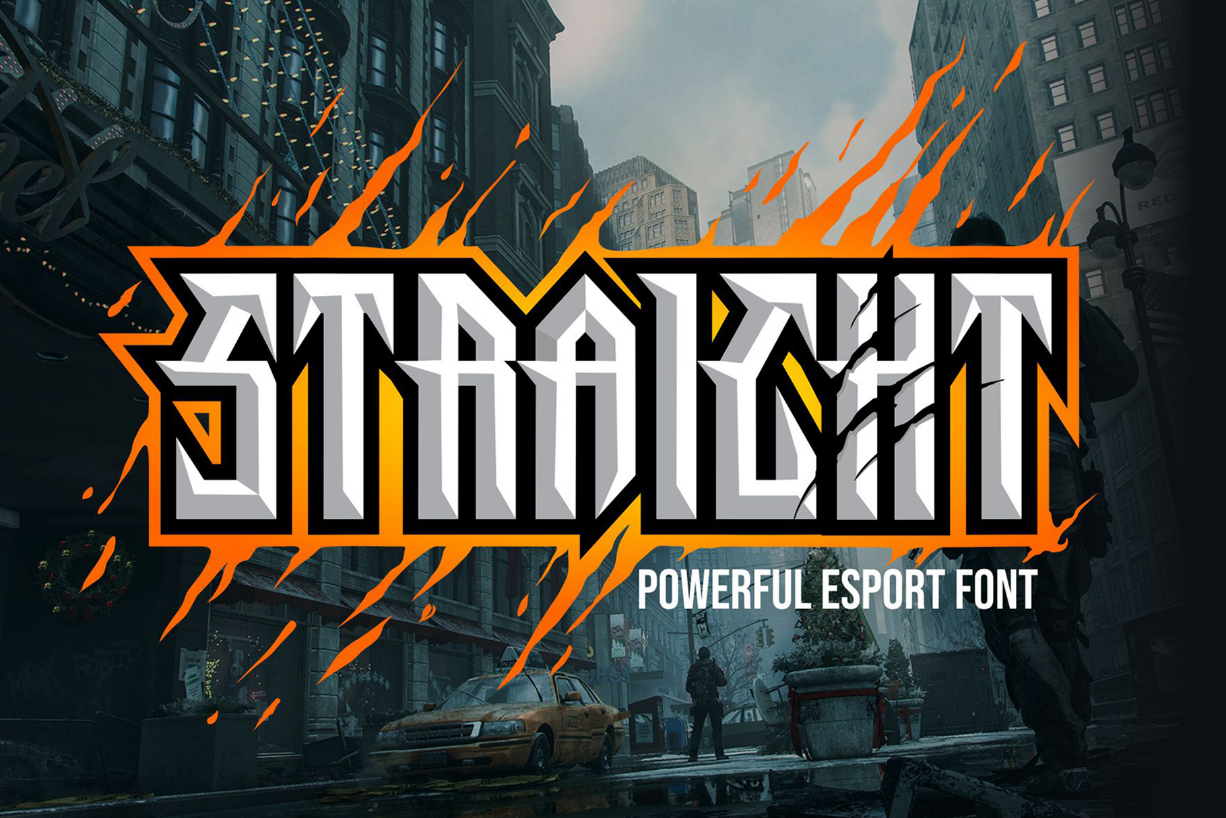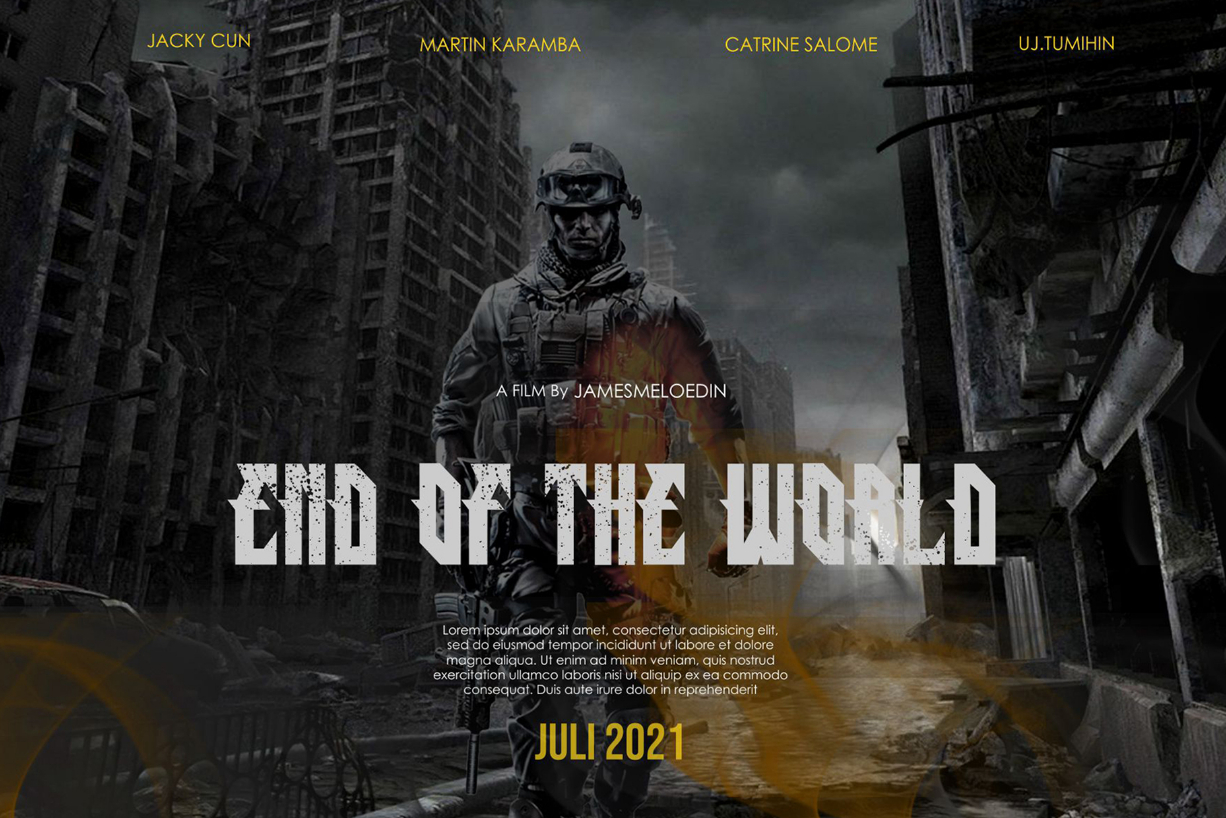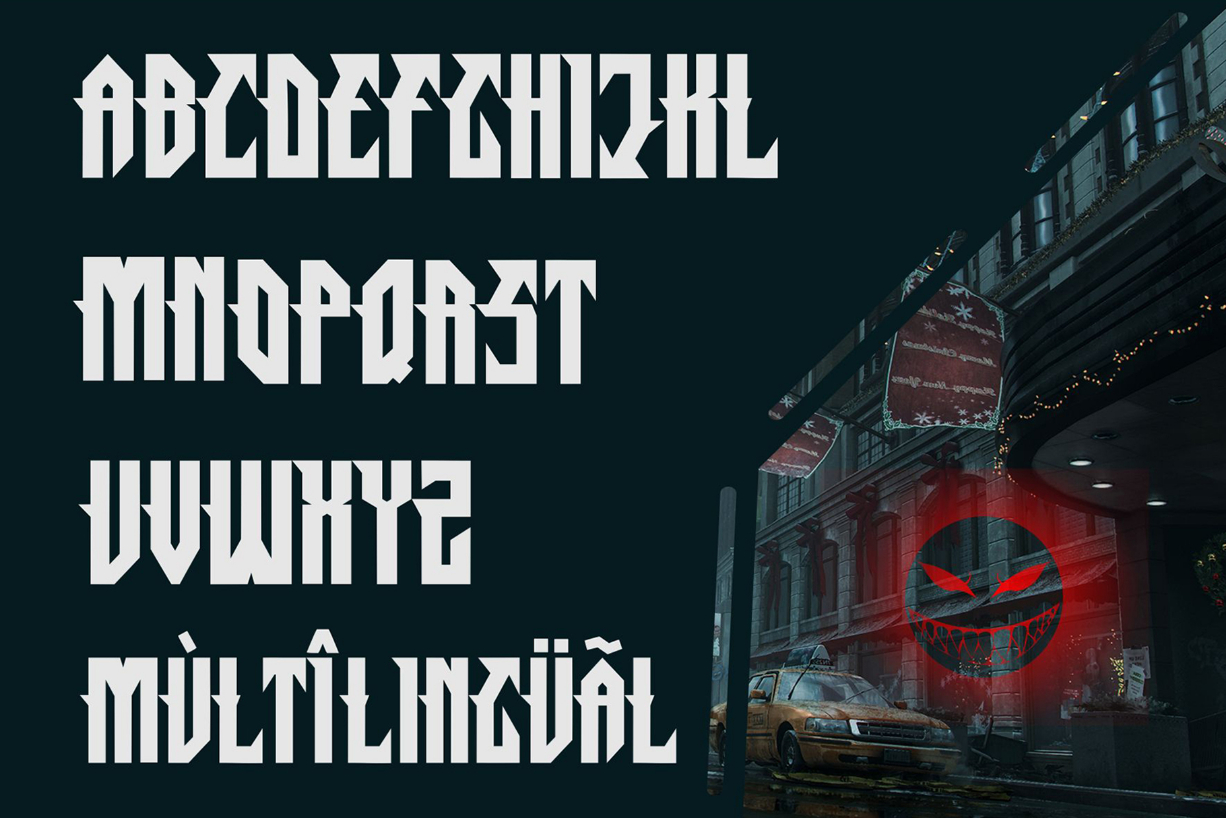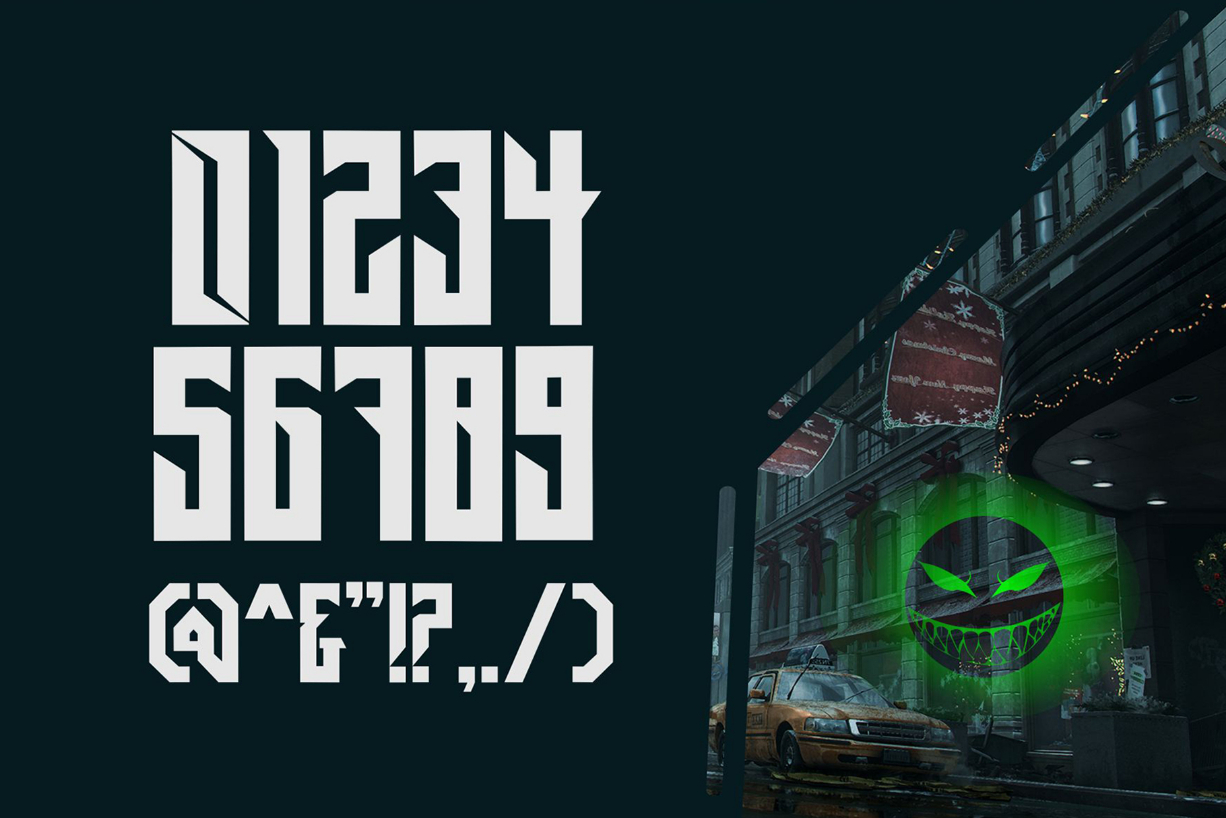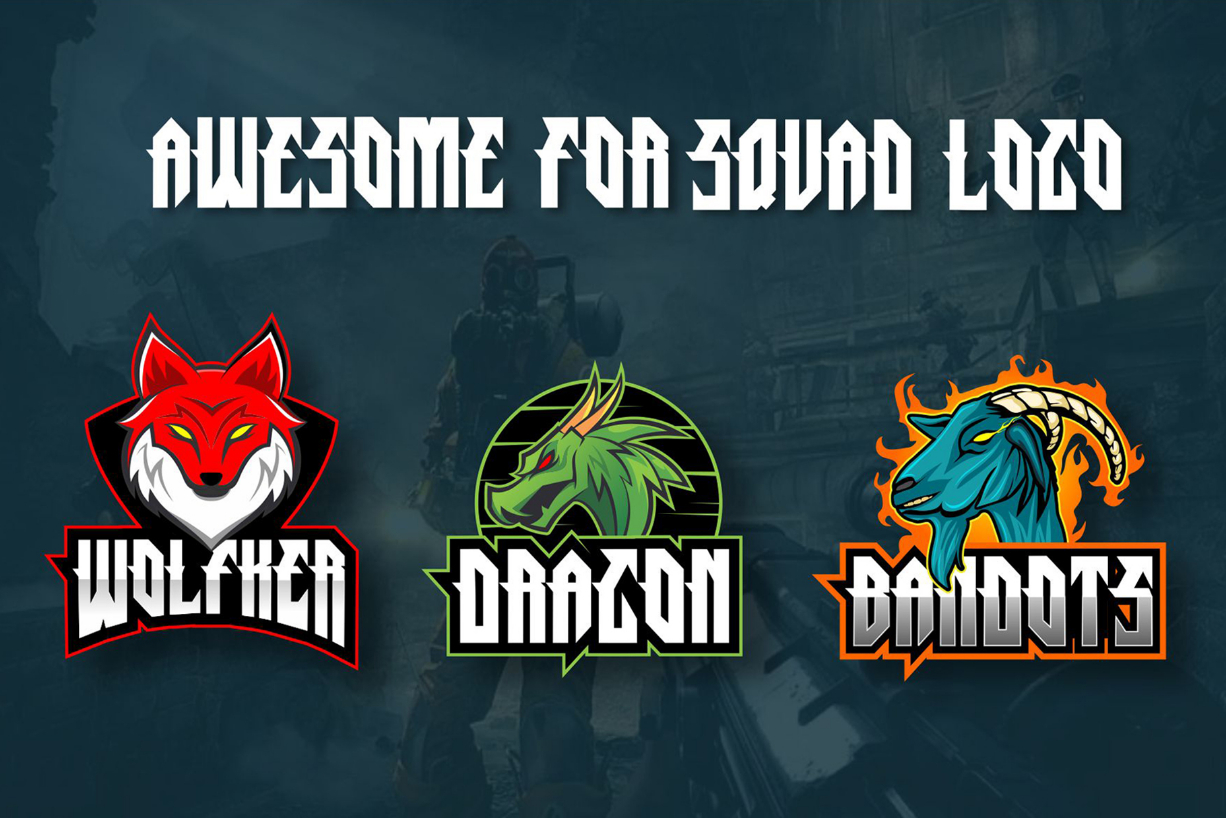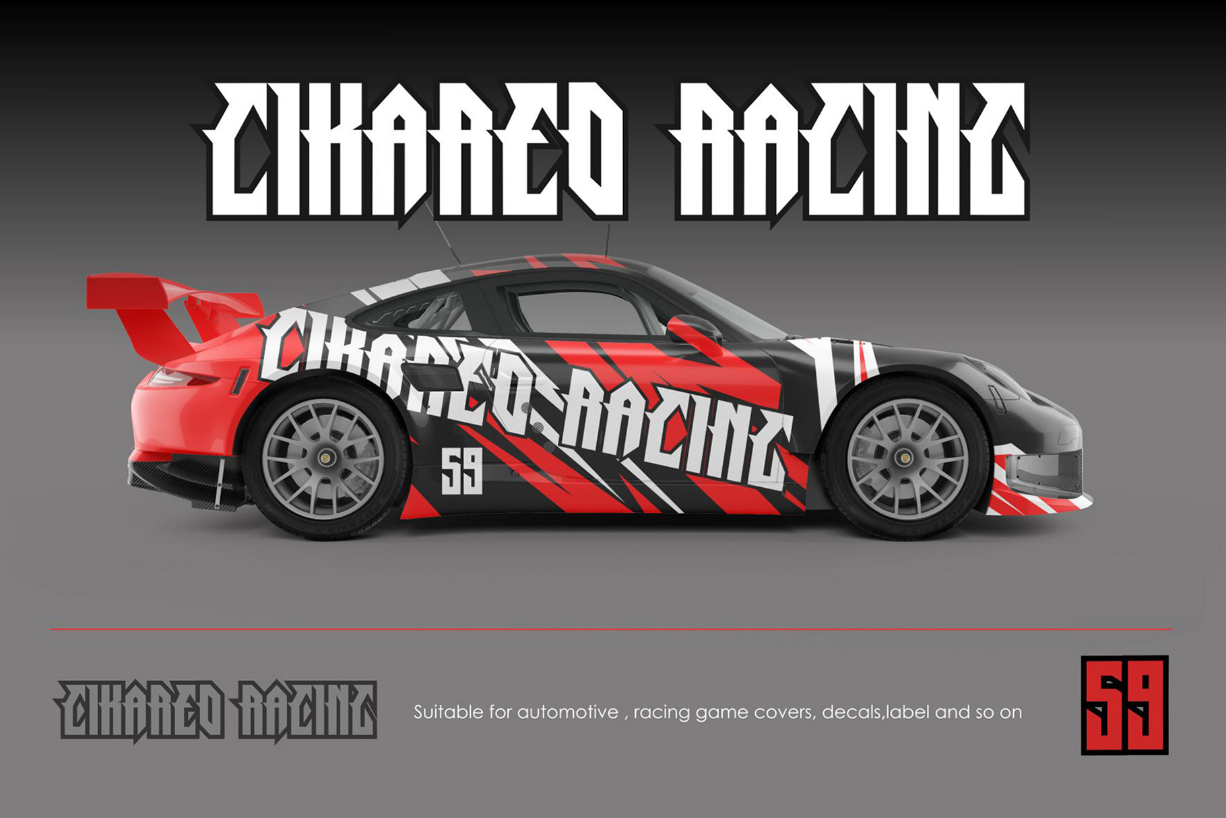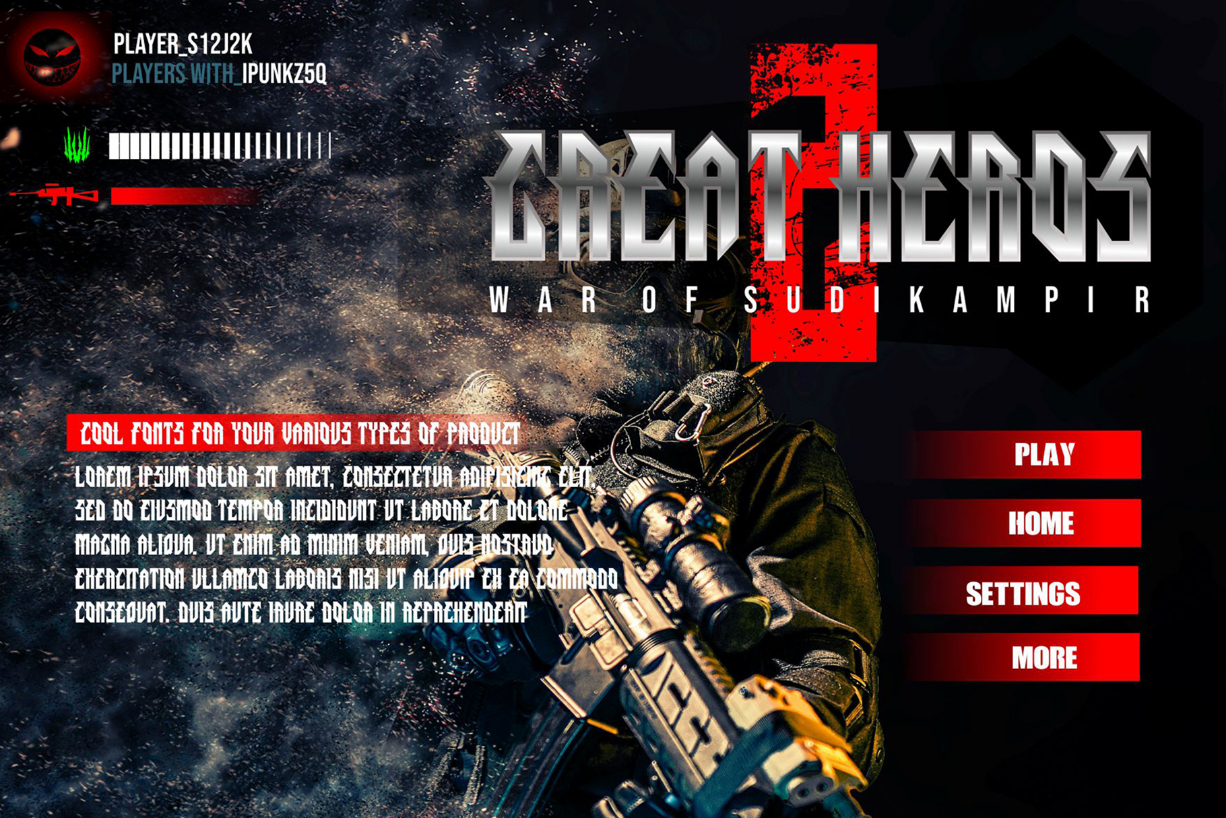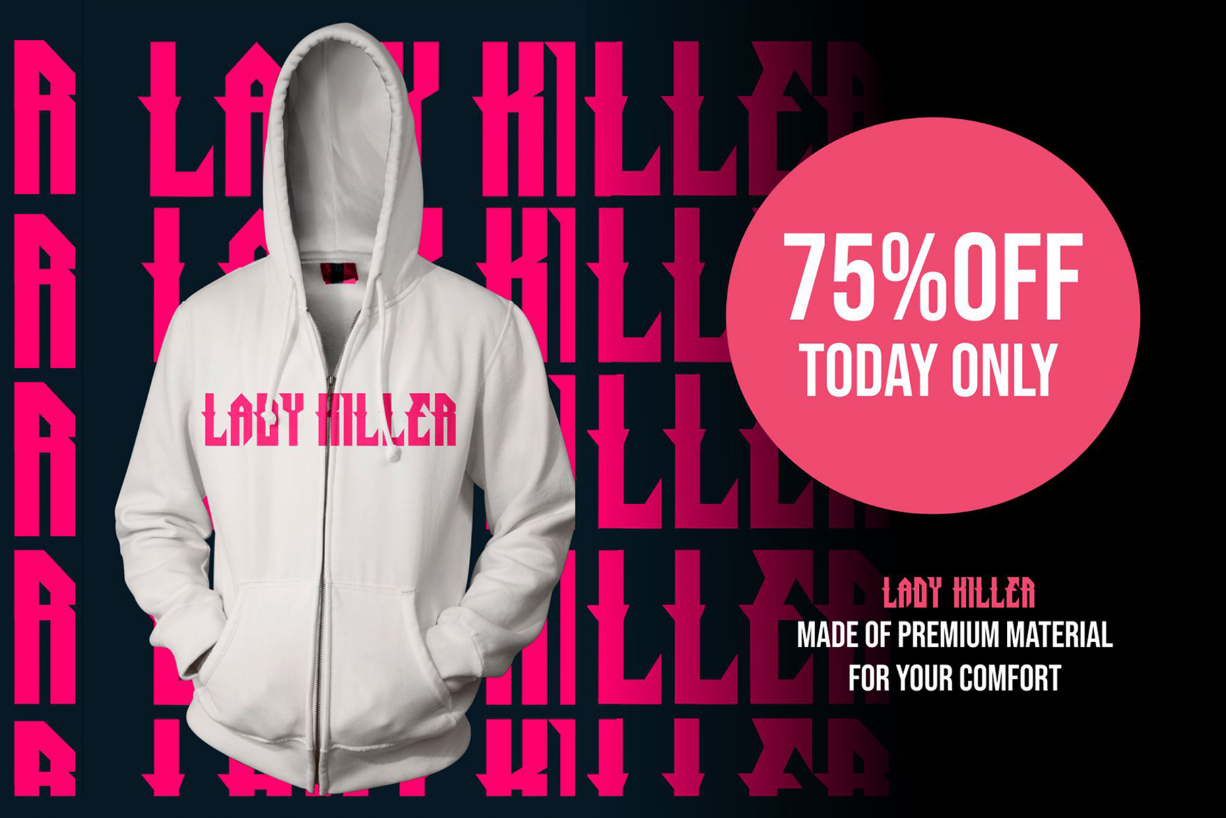
Straight Font
About Straight Font
Straight is a bold, fierce and dramatic looking blackletter font. This font is suitable for designs such as t-shirts, sportswear, logos, advertisements, clothing, and more.